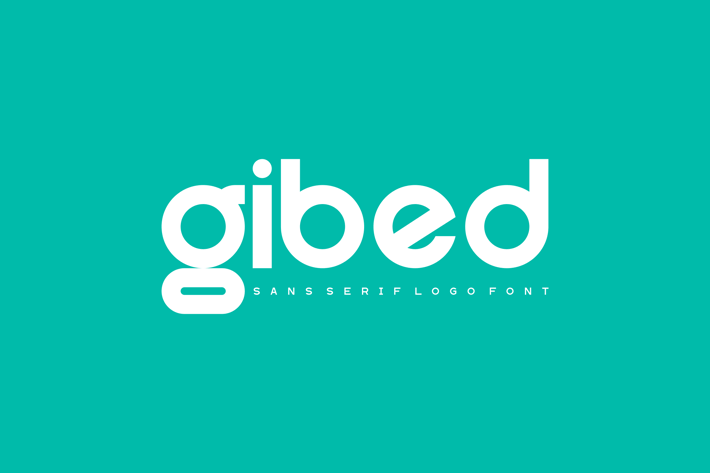
Gibed - Sans Serif Logo Font
Introducing our new product Gibed Font - Sans Serif Logo Font
Gibed Font - Sans Serif Logo Font is a bold and authentic display font.
The font is suitable for any branding project like logo,
t-shirt printing, esport, and many more.
Gibed Uppercase
Gibed Lowercase